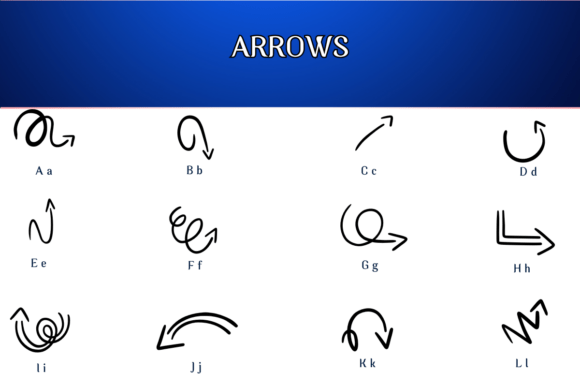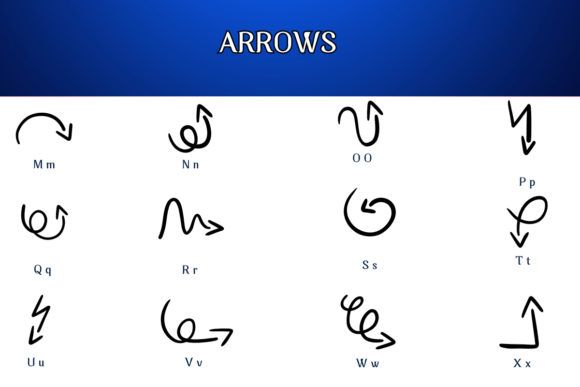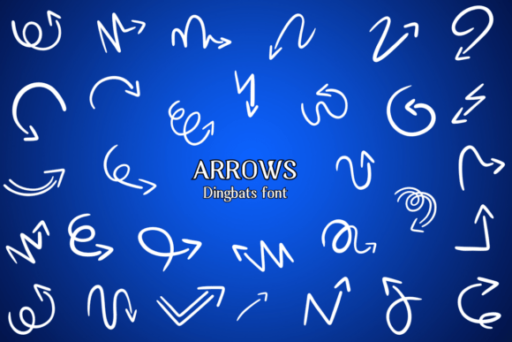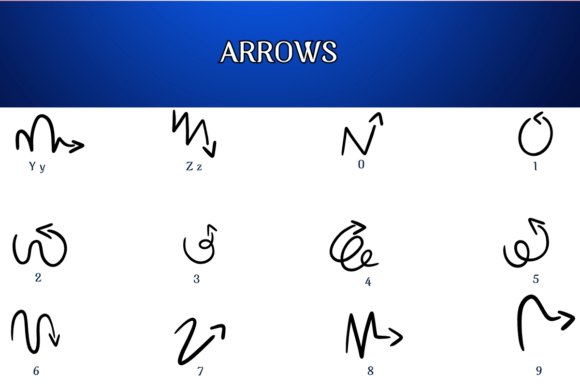
Arrows Font
Arrows One of the hand-drawn styles of arrows in Dingbat Font is zigzag. Other styles are curved, swirly, minimal, and strong. Simply type a letter to get a unique arrow! Make presentations, infographics, planners, signs, digital material, and images for social media with it. Fashionable arrows will help your ideas stand out.